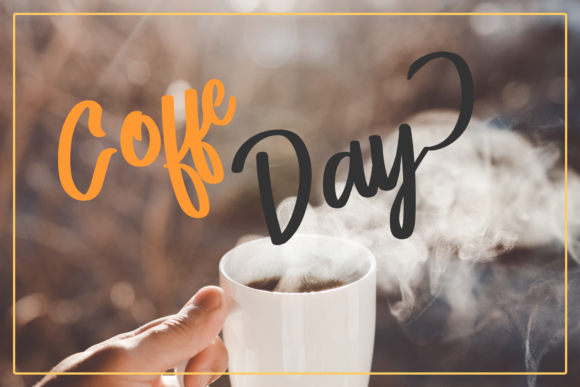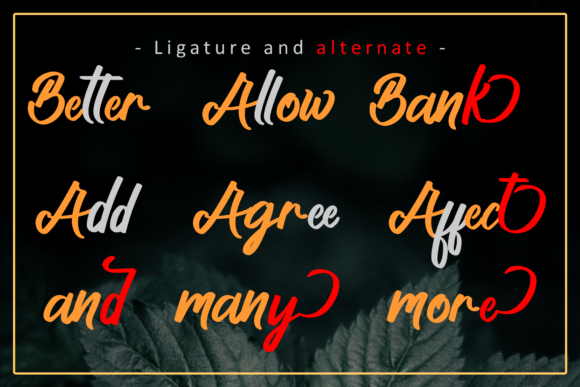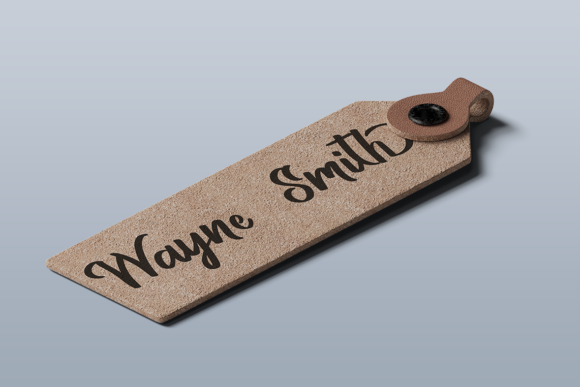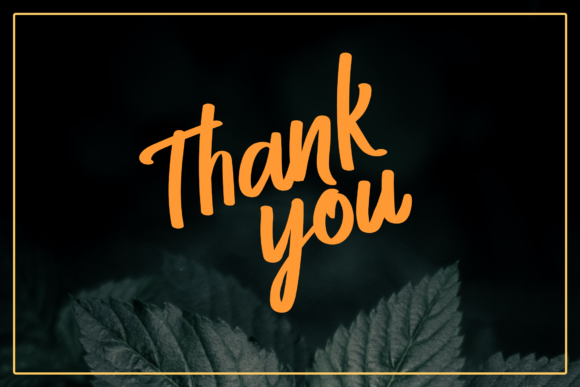
Introduction to Sinatria Font
Sinatria is a magical script font carefully created with a touch of elegance.
Key Features of Sinatria Font
Why Choose Sinatria Font?
Sinatria Font offers exceptional quality and versatility, making it a valuable addition to your design toolkit. Whether you’re creating for personal projects or commercial use, Sinatria Font delivers professional results.